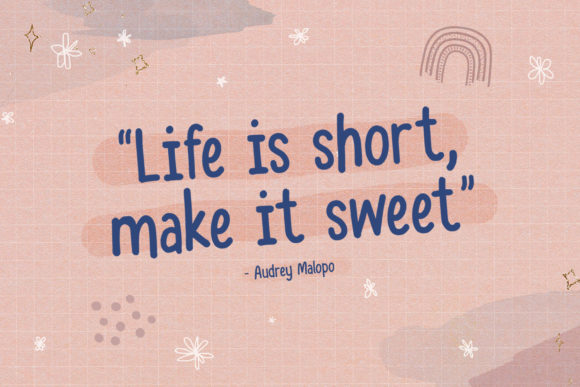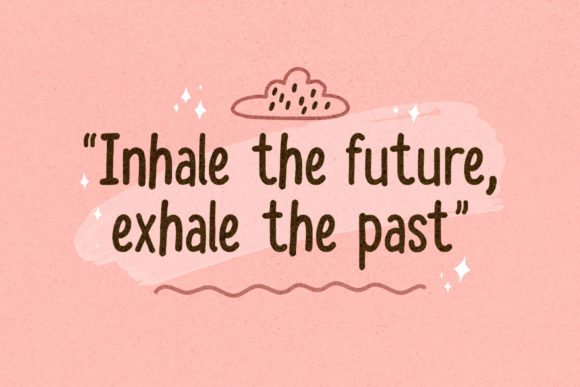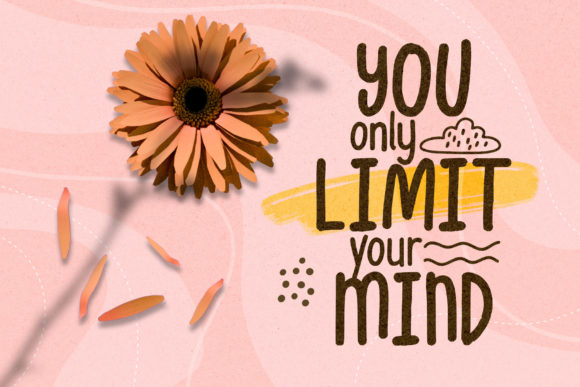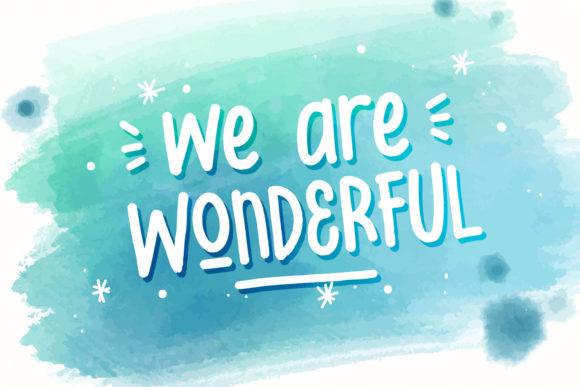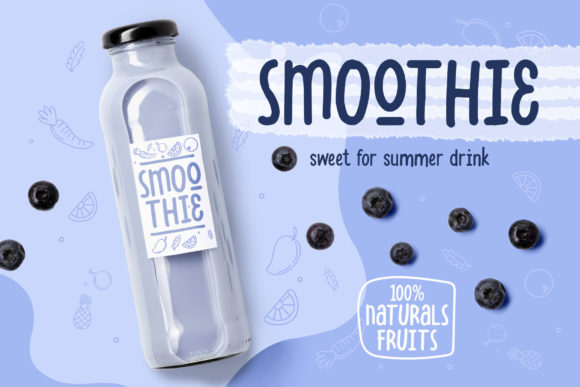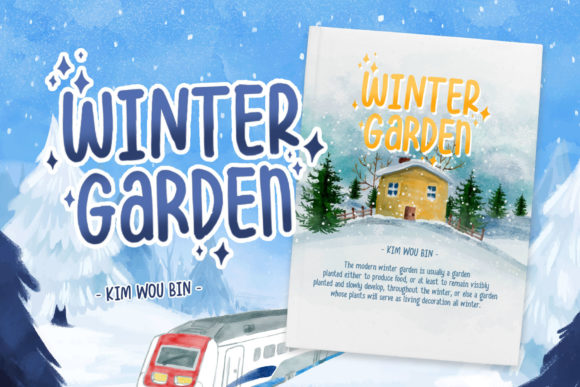
Introduction to Marviona Font Font
Fonts play a crucial role in design, and the Marviona Font font is a typeface that brings both character and versatility to any project. Whether you’re working on a branding project, a website, or a print design, the Marviona Font font offers a unique style that can elevate your work.
Marviona is a cute, friendly and paint brushed handwritten font.
Readable, childish and neat, this font will be the ideal choice for any school related project or casual creation .
Key Features of Marviona Font Font
Why Choose Marviona Font Font?
The Marviona Font font is more than just a typeface – it’s a design tool that helps you communicate your message with style and clarity. Its unique character set and versatile design make it suitable for a wide range of applications, from elegant invitations to bold headlines.
With its carefully crafted letterforms and balanced proportions, the Marviona Font font ensures readability and visual appeal across all mediums.
What makes Marviona Font font special?
The Marviona Font font stands out with its unique design, exceptional readability, and versatility across various design applications.